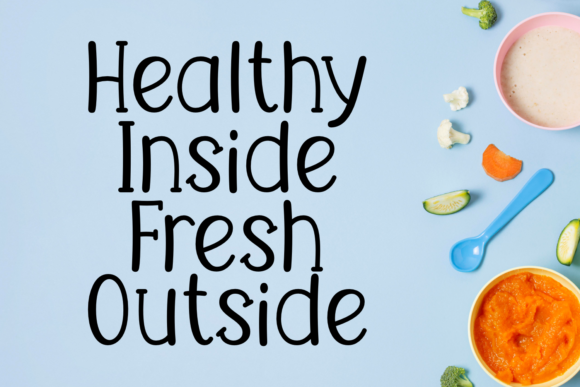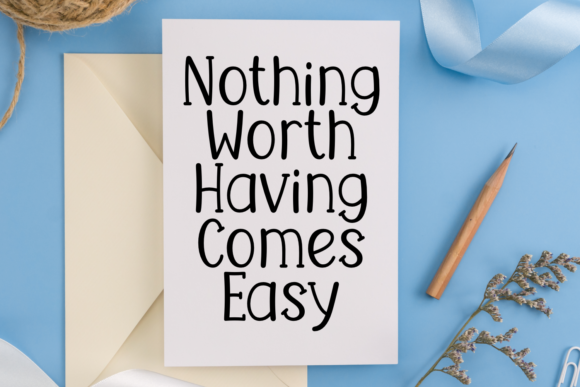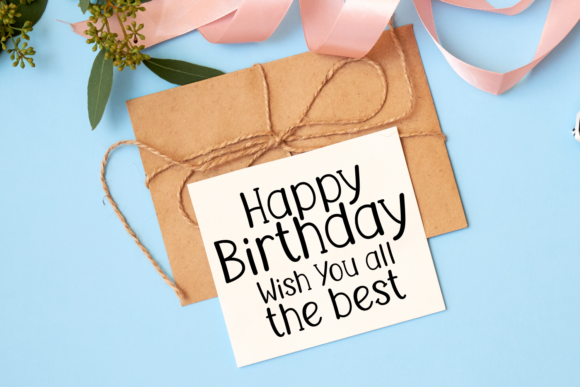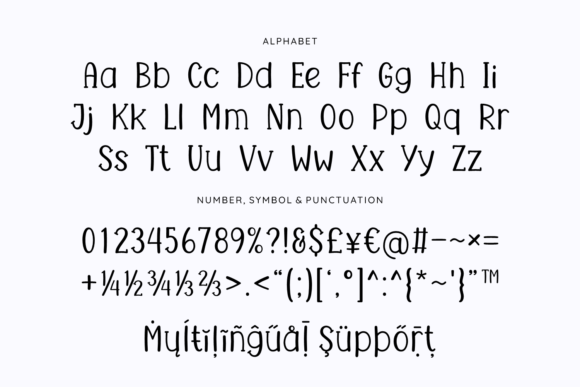
Retail Therapy Font
Retail Therapy is an elegant handwritten font with thin and tall characters. This modern typeface is perfect for quotes, birthday cards, logos, wall art, frames, and various other design ideas.